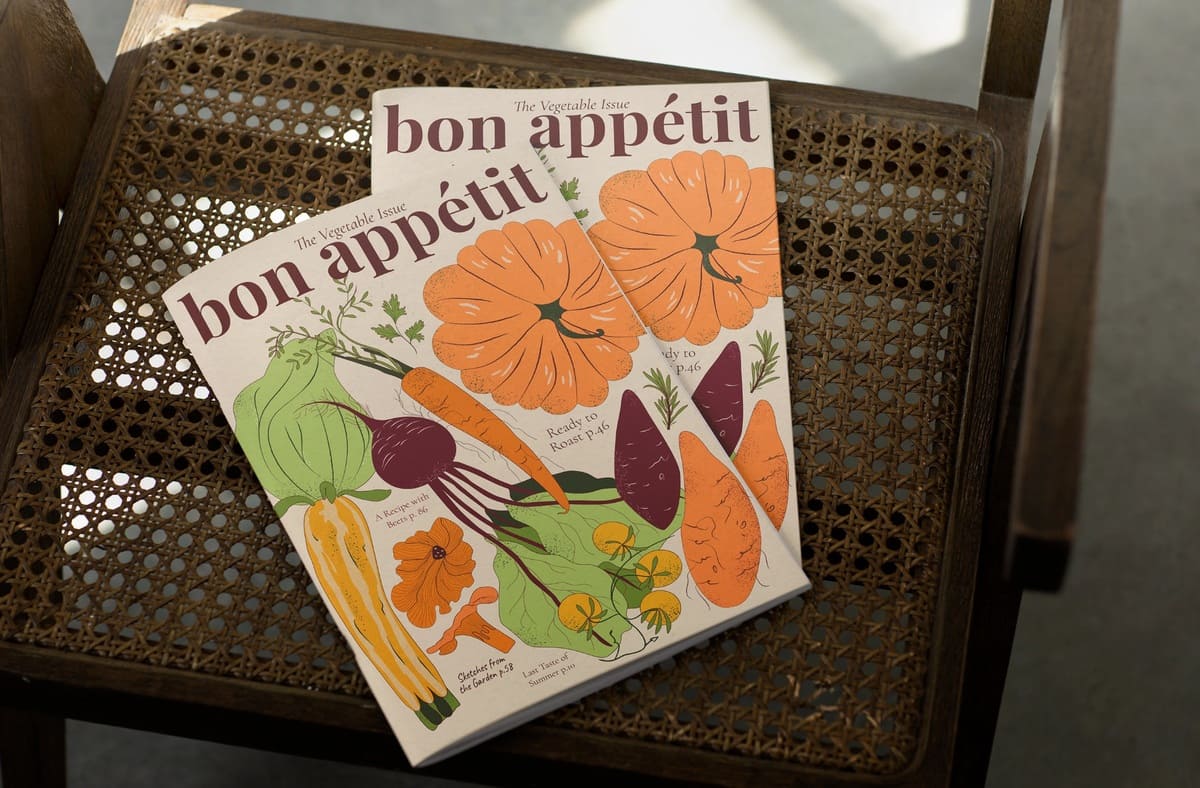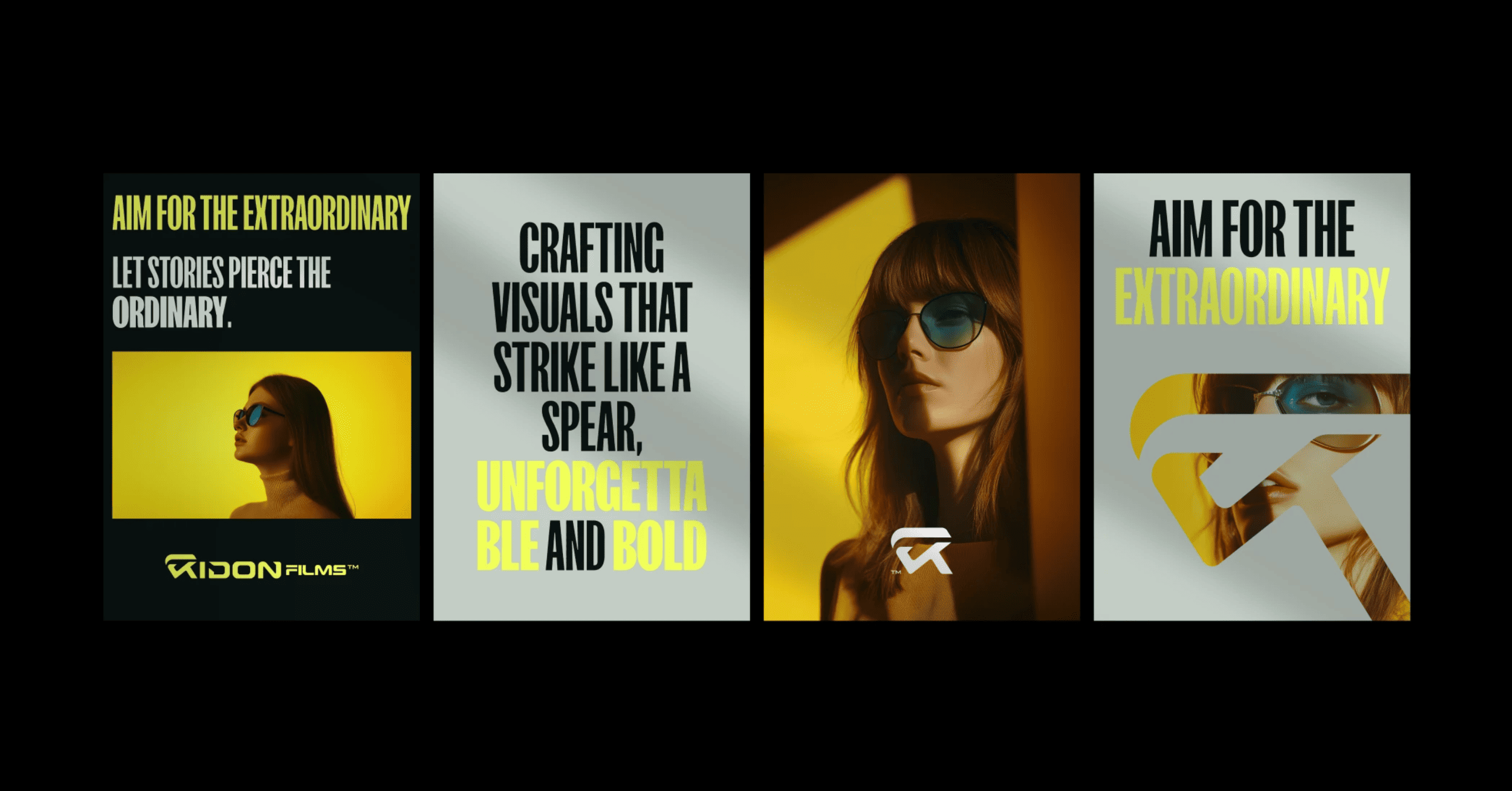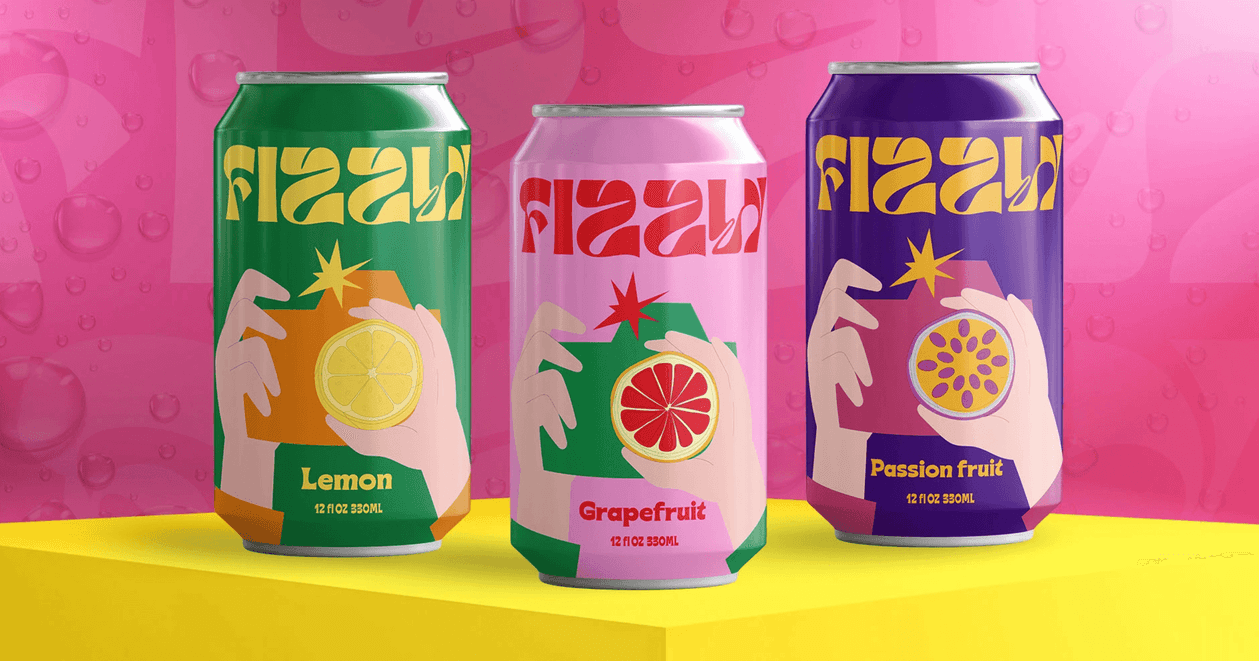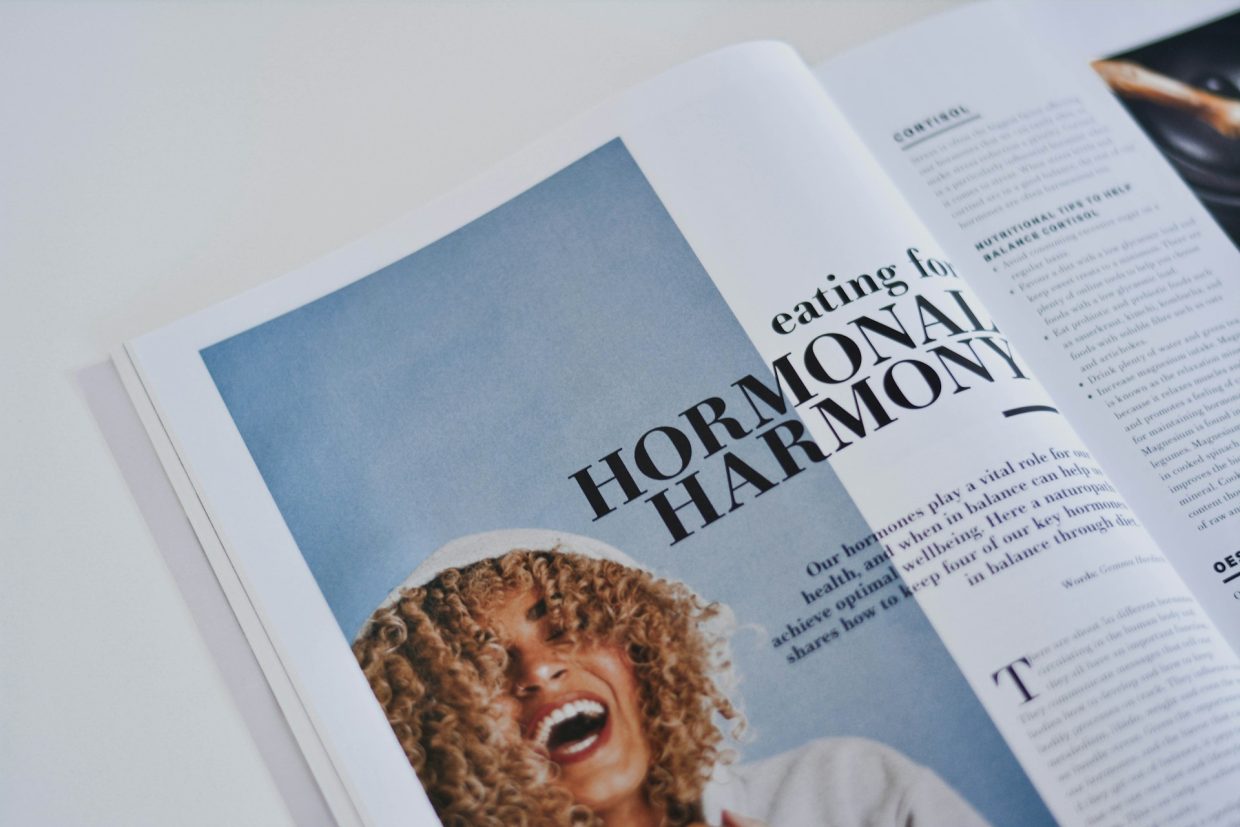
Display fonts are back in the spotlight
Display fonts, with their bold personalities and distinctive flair, are returning in modern design.
From web headers to packaging or logos, they appear everywhere, and for good reason. Today’s display fonts are smarter, more versatile, and better suited to the digital environment than ever before. 👀
If you’ve used display fonts in your designs before, you should consider whether they’re still as good as modern ones. Older designs have a limited number of fonts. And since modern variations are available in an unlimited amount, simply changing to a new font can give you a new experience and inspiration in creation of your designs.
bring character, clarity, and energy to any design project. Let’s go up to the whole article below. We hope you’ll find it needful.
What are display fonts?
Display fonts are fonts specifically designed for use at larger sizes. Unlike body text fonts, which are designed for long-term reading and subtlety, display fonts are designed to stand out. They are typically used for headlines, titles, logos, posters, and anything that requires visual impact.
They are not designed to be easy to read in paragraphs, but to convey the thought. These fonts can be “serif”, “sans serif”, “script”, “slab”, or “experimental”, but they are defined by their purpose: to grab attention, to highlight, and create a mood with just a few words. 👌
Display fonts creates an effect
There’s a reason why display fonts are making a comeback: they’re one of the easiest ways to give a design personality. With a single bold font, you can set the tone for an entire brand, campaign, or layout.
Display fonts work especially well in modern designs that inevitably tell a story because:
- They are able to grab attention instantly;
- They provide a unique style without adding extra graphics;
- They help reinforce a brand identity or convey the tone of a message in the simplest way;
- They give simple layouts an impression of individuality and completeness;
- They are used and preferred by the most important design and graphics studios;
- They are clearly and distinctly visible, and instantly understandable.
In times when scrolling is fast and attention spans are short, display fonts help your content stand out from the crowd, whether it’s a website banner or a social media ad.
Latest display font trends
The latest display font trends are setting the tone in the world of typography. Here, we’ll take a look at some of the key aspects and give you a sense of what’s hot right now:
- Clean Minimalism
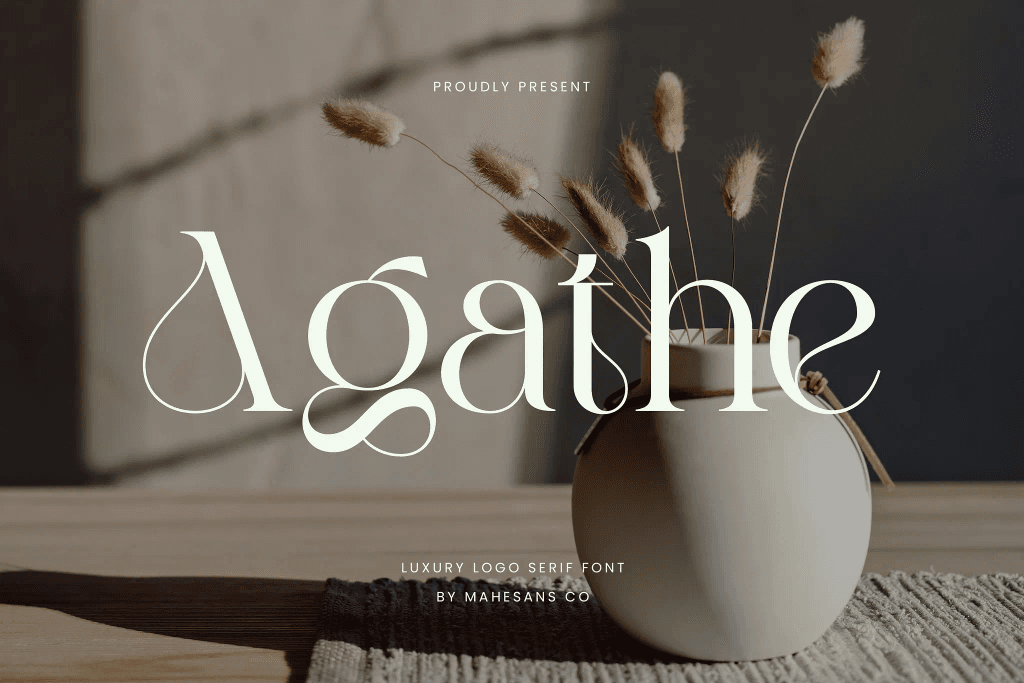
Modern minimalist display fonts are what really make a difference compared to previous fonts. Graceful shapes and letters created to the highest quality allow this type of typography to shine.
- Retro Booming
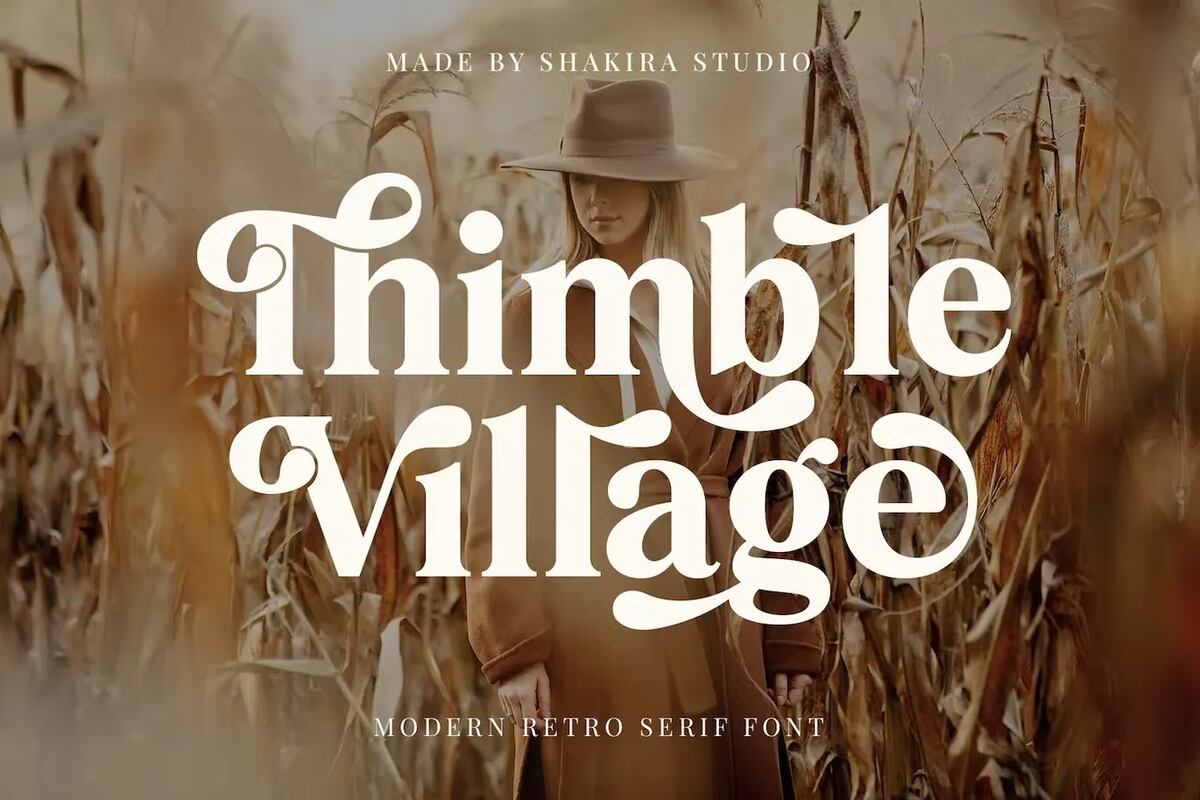
Many designers have created thousands of fonts that are both 70s, 80s and 90s, taking their retro style and making them modern, but with a touch of nostalgia. These retro fonts are definitely making a comeback.
- Bod Serifs
Bold, reliable serif fonts are back with a bang. These fonts add sophistication and distinction, often used in editorial layouts, packaging, and brand headlines. They combine the elegance of traditional typography with the thickness of display design.
- Experimental Type
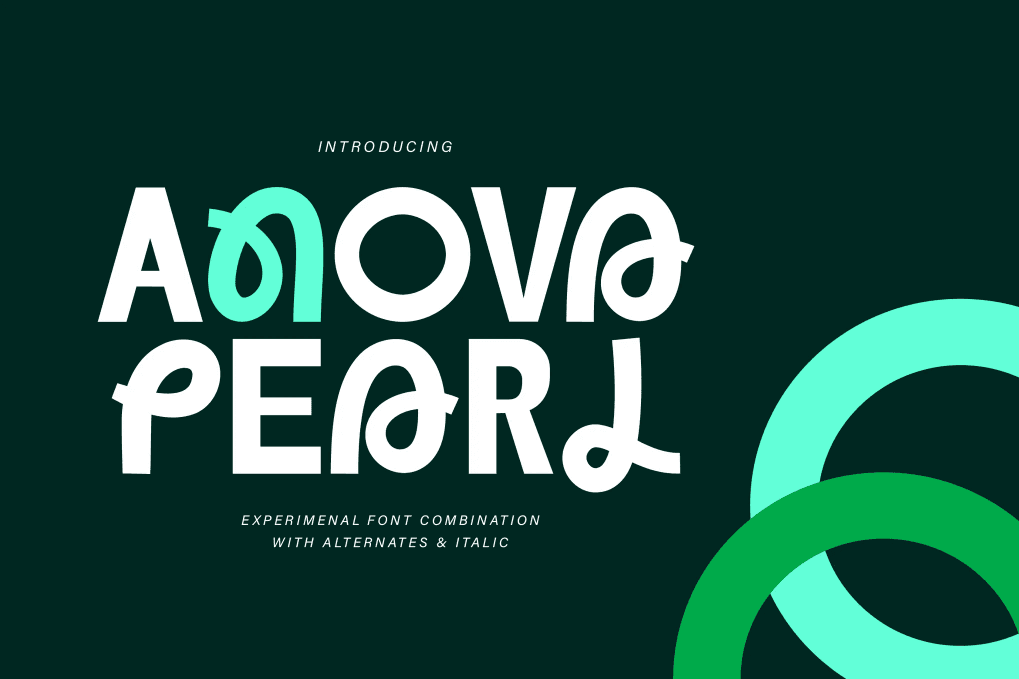
Experimental display fonts can be very interesting and beautiful. They will make unique logos, posters and flyers look perfect. They have a slightly illegible style, but that’s the point, they are different, special and come with a bang.
- Variable Timeless Style
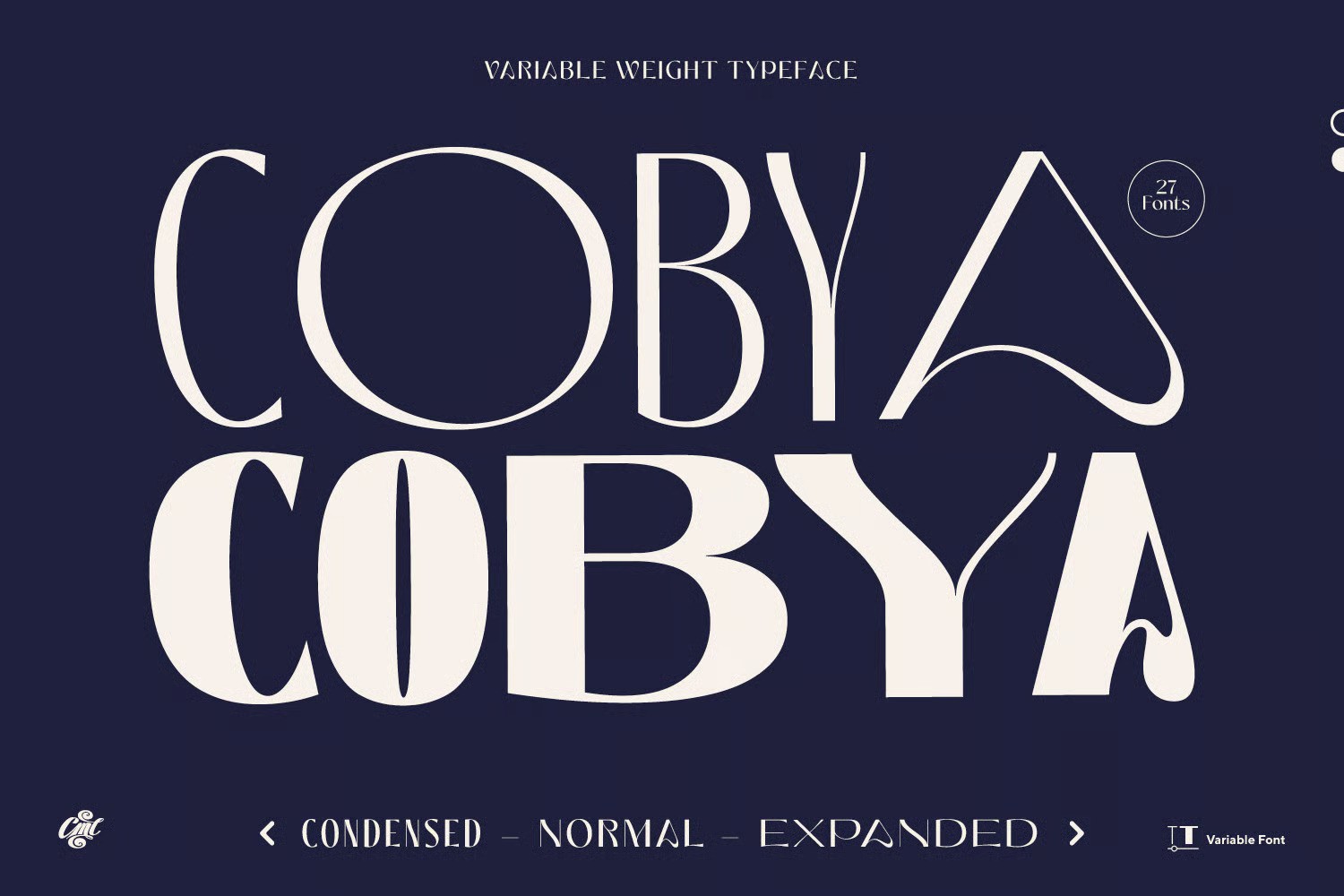
As digital formats become more dynamic, variable fonts are gaining popularity. In fact, they’ve always been on the rise. Designers are using display fonts that respond to interaction or include movement between letterforms, adding a layer of engagement to websites, apps, and videos.
- Geometric Dynamics
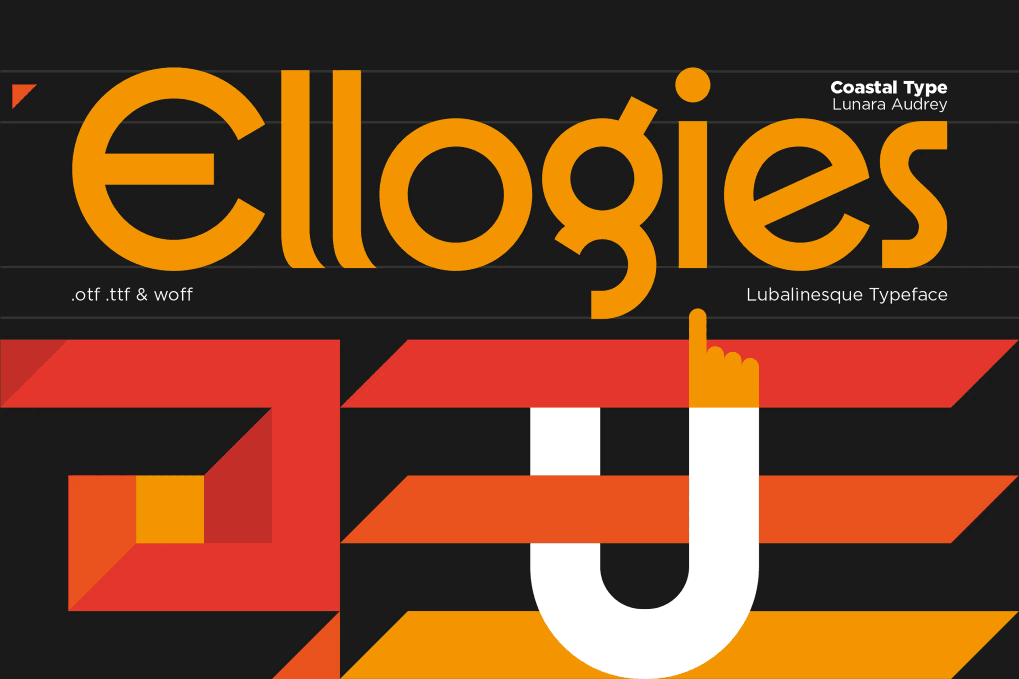
Geometric styles have always had their fans, but with the advent of display fonts, they have become even more popular than ever. Geometricity is a masterpiece and the flexibility of forms. If you are creating logos, covers, magazines, brochures and titles, these fonts will definitely be useful to you.
Where and when to use display fonts
Display fonts can be used anywhere you need text that is easy to read and has a clear meaning. Due to their decorative nature, display fonts are best used sparingly and thoughtfully so that they have the most impact without overshadowing the rest of the design.
Where they can appear:
- Headlines and Body Text: Make the top of a page or printed design instantly eye-catching. It doesn’t take much skill.
- Logos and Branding: Create a unique visual style with an iconic font. Thanks to the flexibility of display fonts, you can use it without a guilty conscience.
- Posters, Flyers and Brochures: Create bold compositions using only text and images when needed. Your design will be legible, sharp, and eye-catching.
Final Thoughts
Display fonts are timeless. There are many of them. The choice is huge. Of course, it is difficult to find the right font that will suit your design. So be patient when searching.